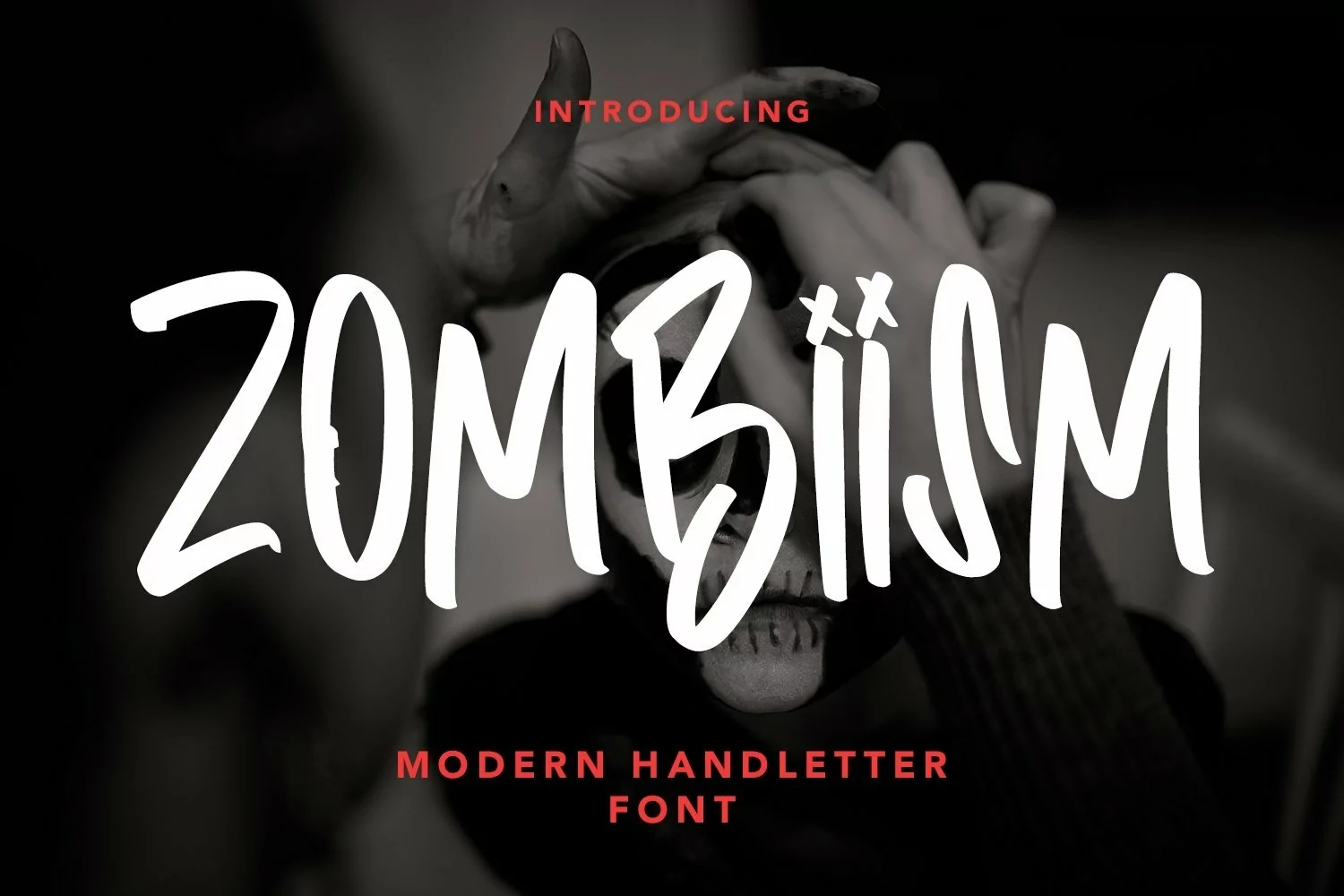
Web Font Zombiism - Modern Handletter Font that contain lowercase, uppercase, symbol, and also support multi language. There’s a lot ligatures in this font. This Font also comes with ligatures, alternates and many more. this font suitable for fashion, branding, catalog and other design what you want.